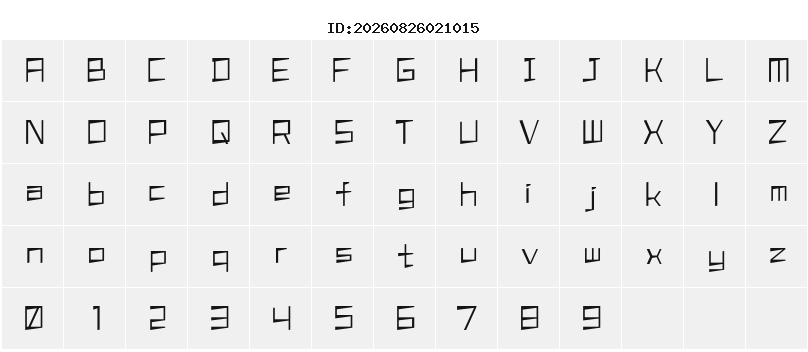
• Font Name: S
• Font Style: A0kmh
• Full Font Name: S A0kmh
About S.ttf
S.ttf is a modern, elegant sans-serif font designed for ultimate readability and visual harmony. Perfect for branding, headlines, web design, and print materials.